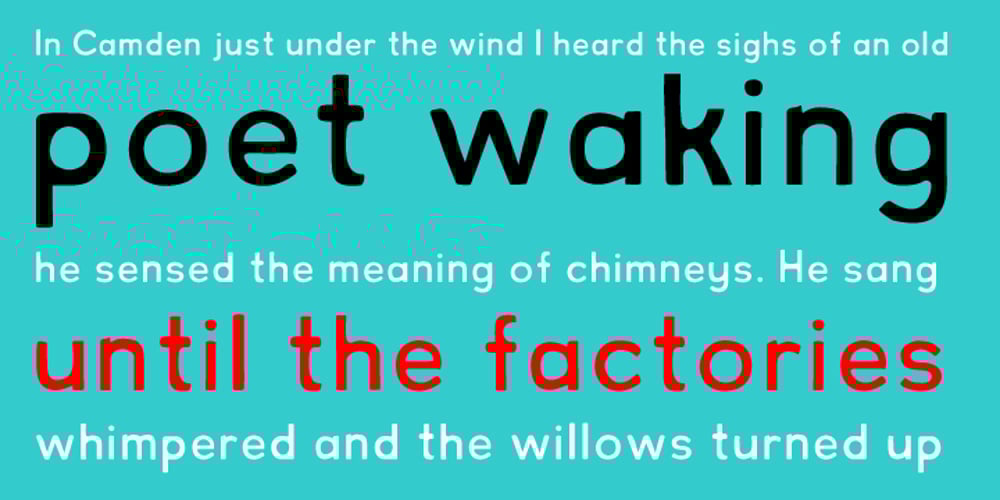
North Bergen
North Bergen font
North Bergen Font Family was designed by Pablo A. Medina and published by Design is Culture. North Bergen contains 2 styles and family package options. North Bergen is a dirty sans serif based on letterforms seen painted on a wall of a magazine store in North Bergen, New Jersey. Its unrefined, quirky forms reflect a typographic naivete and are meant to evoke a sense of hand painted signage.